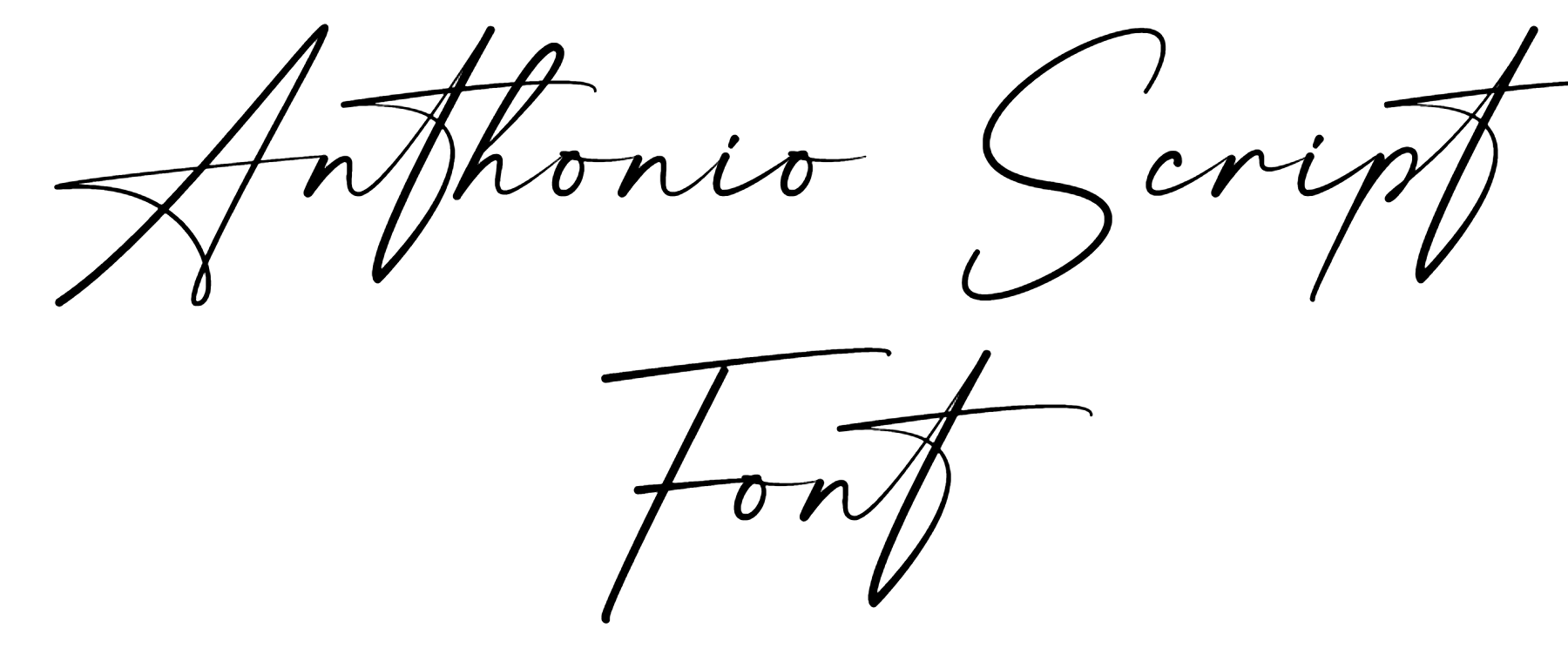
Anthonio Script
Anthonio Script is a handwritten font designed by Yudi Pratama Chandra and published by RantauType (2021). It looks like someone actually wrote it by hand: relaxed, friendly and a little imperfect in a good way. You can download it for free and test it with your own words in the preview above.
- Extra characters: 27 copy-and-paste alternates (Private Use Area)
Anthonio Script covers the full alphabet in upper and lowercase, plus all ten numbers, so you can set names, dates and prices without switching fonts. Common punctuation such as &, !, ? and @ is included as well. It also has the accented letters you need for Spanish, French, Portuguese and Italian.
Its 27 alternates are stored as separate characters, so you can copy them from Character Map on Windows or Font Book on a Mac and paste them anywhere, including Cricut Design Space and Canva. Its ligatures switch on by themselves in most design apps: certain letter pairs join into one specially drawn shape.
Designers usually reach for fonts like Anthonio Script when they're making greeting cards, journal pages and friendly social posts. Its lowercase letters are small compared to the capitals, so set it a size or two bigger than usual. Set it a bit larger than you would a normal text font. Handwriting styles lose their charm once they get too small to read comfortably.